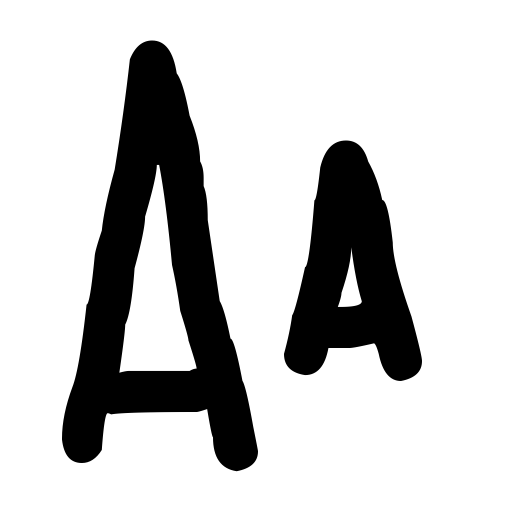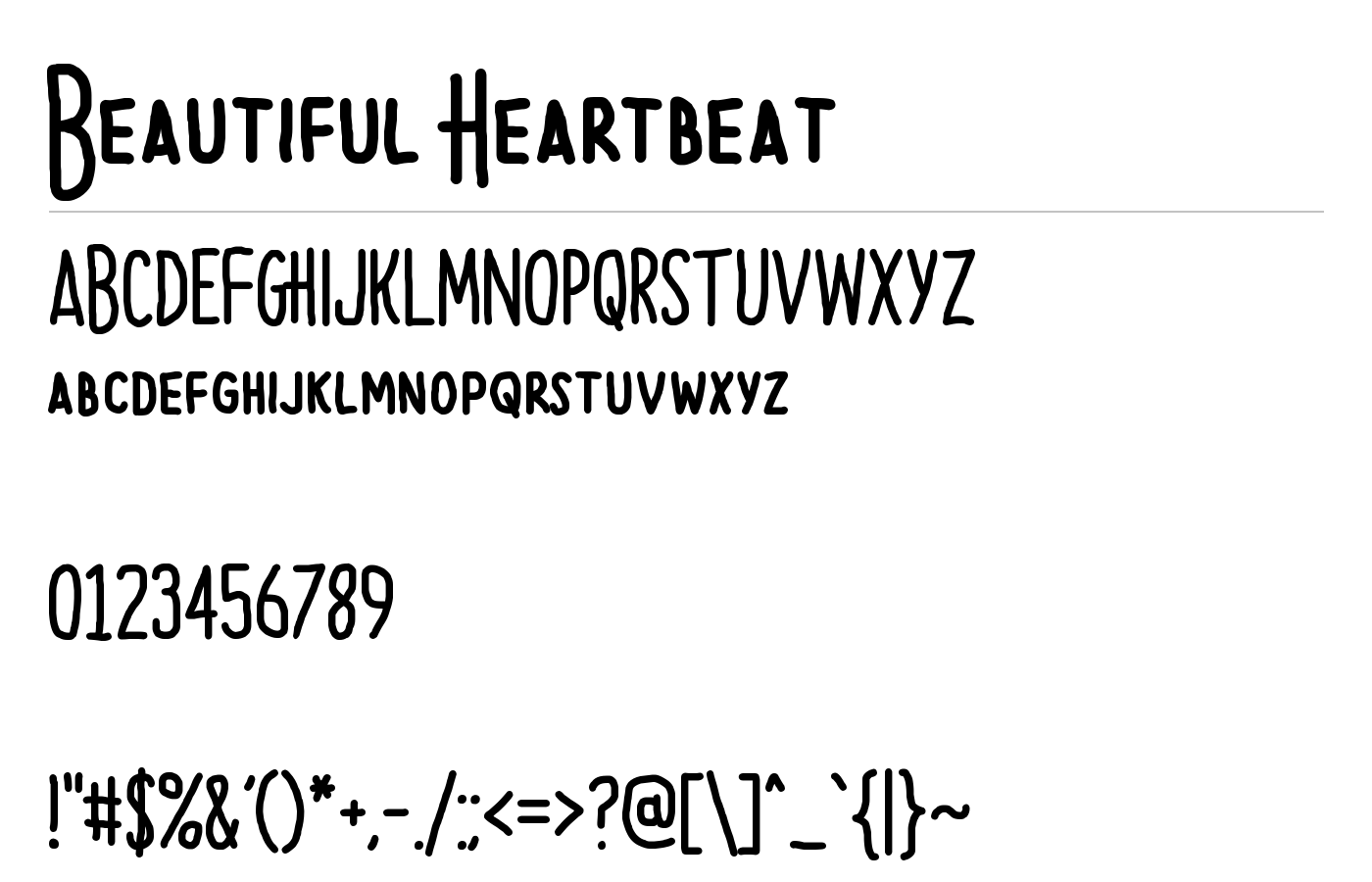
Beautiful Heartbeat is a whimsical sans serif font with a playful and handcrafted feel. Its tall, narrow characters and slightly irregular strokes give it a charming, casual personality perfect for creative and informal designs. This font works great for crafting unique logos, posters, and editorial headlines where a fun, friendly vibe is desired.
Beautiful Heartbeat Font
About Beautiful Heartbeat Font